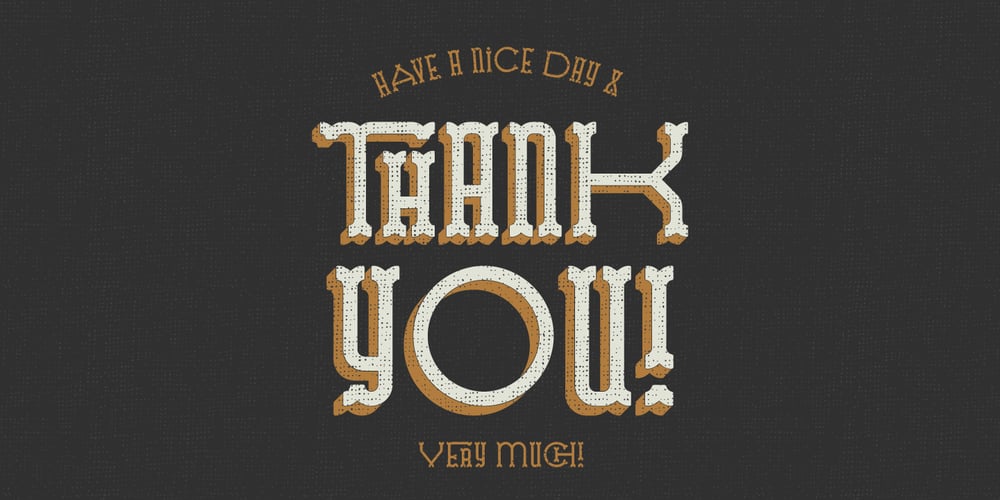
Traveler
Traveler font
Traveler Font Family was designed by Gleb Guralnyk and published by Gleb Guralnyk. Traveler contains 5 styles and family package options. Introducing a wild west style font named “Traveler”. It has wide and narrow characters, and lots of ligatures (automatically replaceable with open type feature). Trendy extruded effect is made in separate font file, for easy editing and coloring.